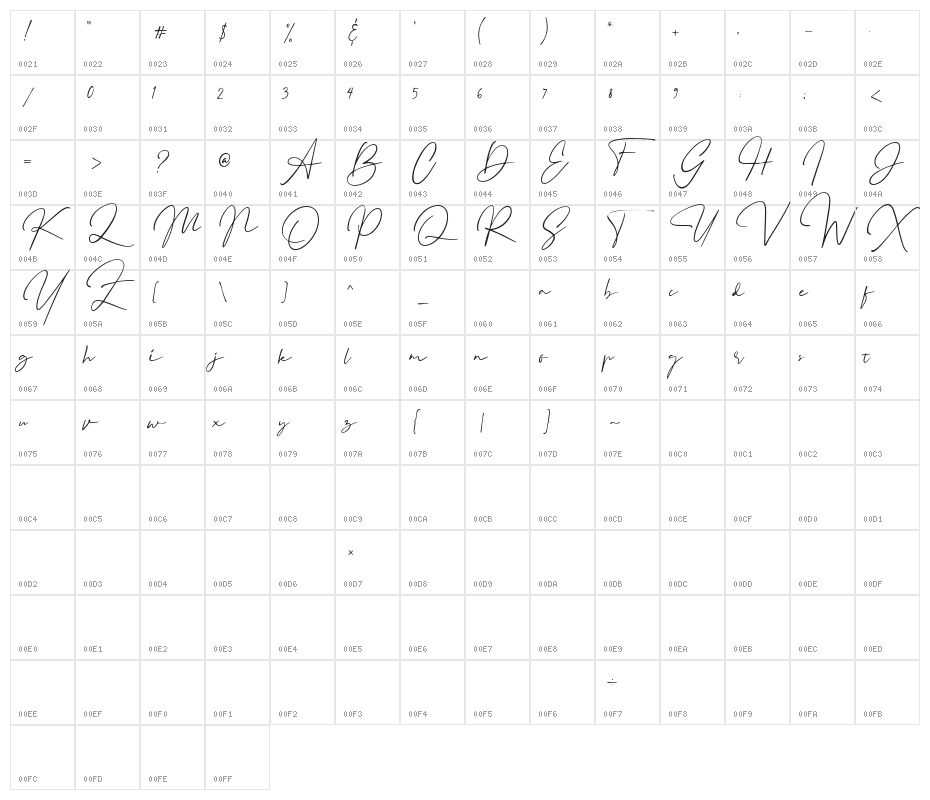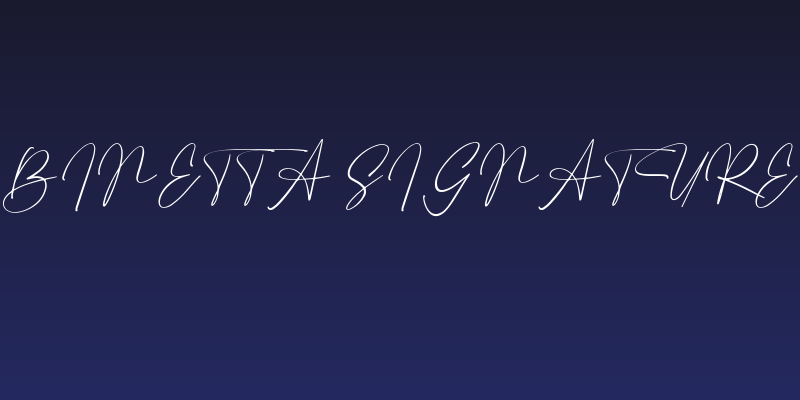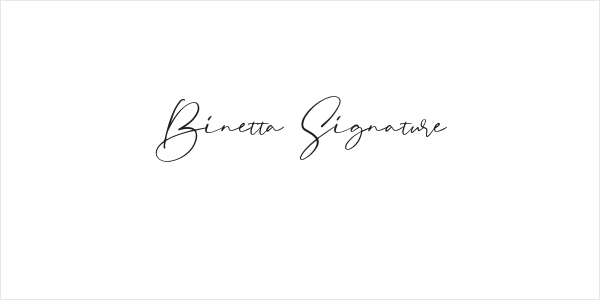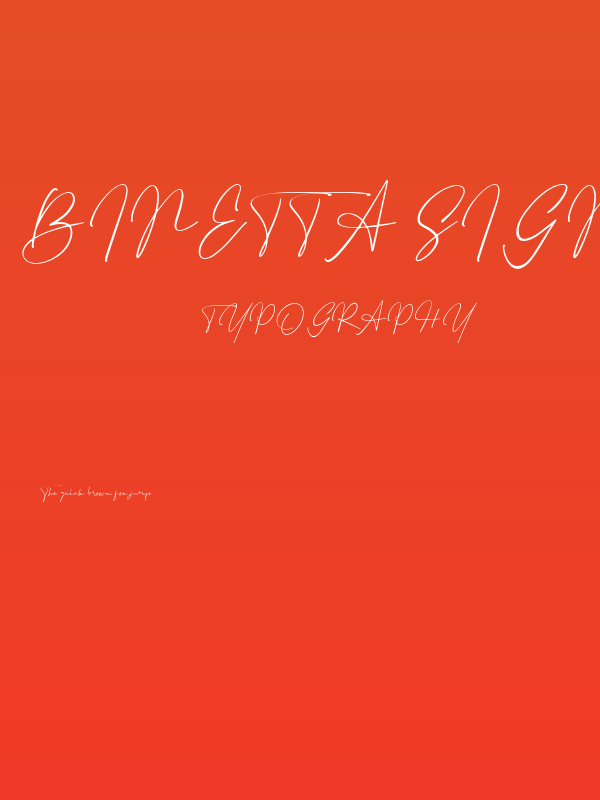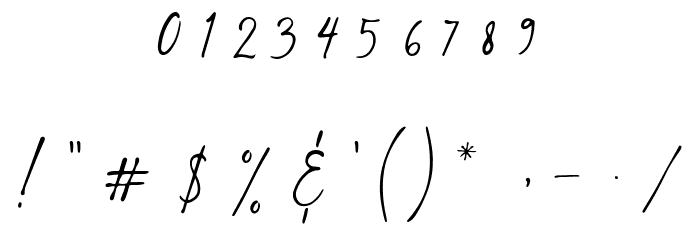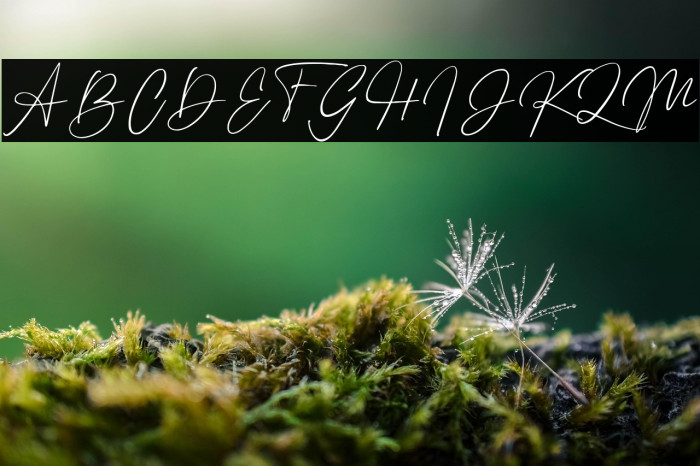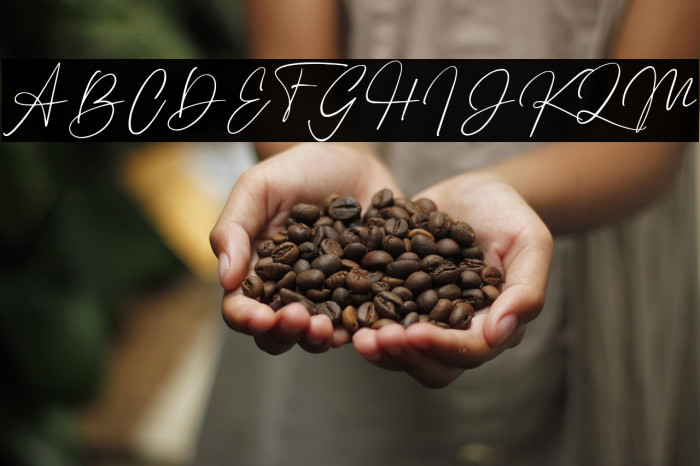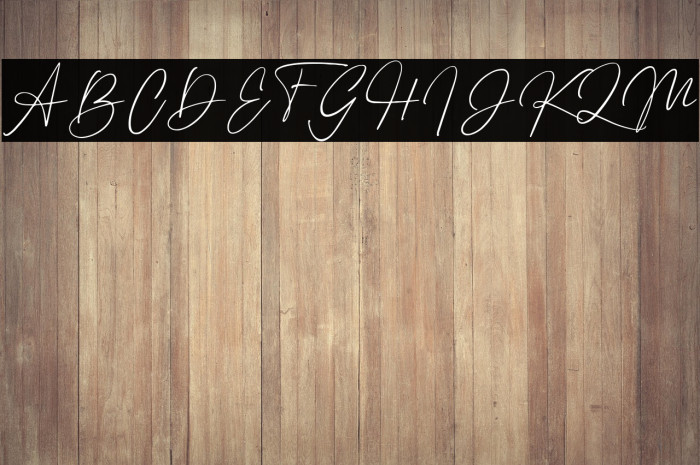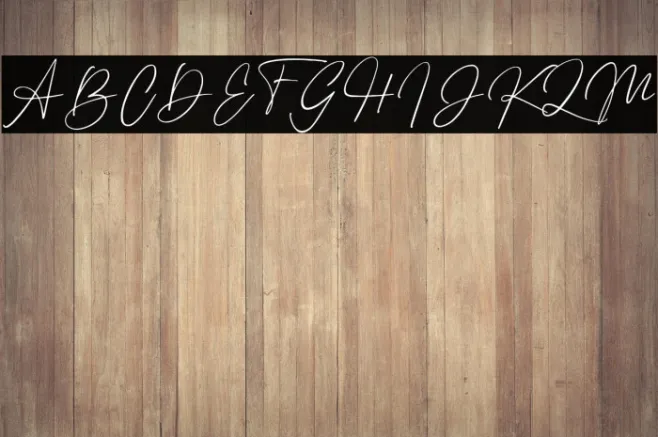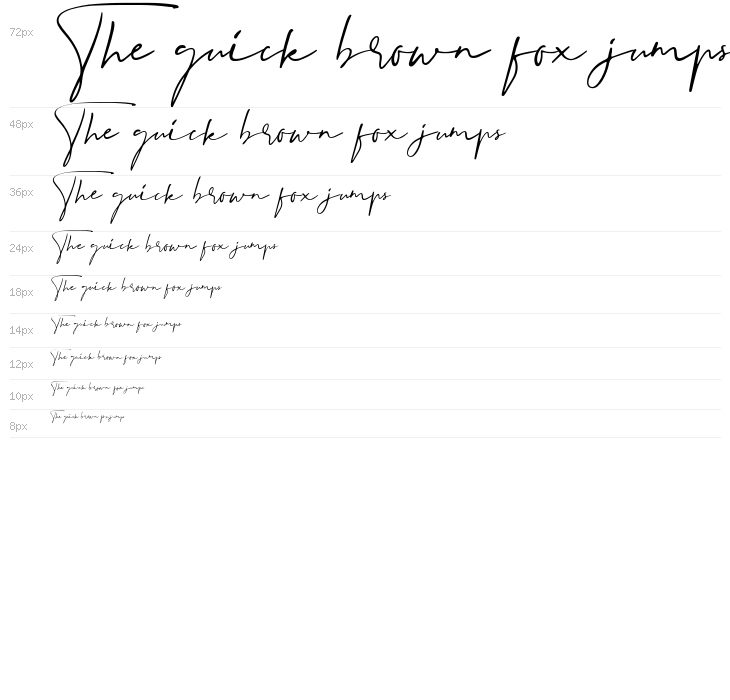
Binetta Signature Font
Binetta Signature Description
This font exudes elegance and sophistication with its flowing, cursive style. The letters are interconnected, creating a seamless and fluid appearance that mimics natural handwriting. Each character is crafted with delicate strokes, giving it a refined and graceful look. The uppercase letters are slightly more elaborate, while the lowercase letters maintain a consistent and harmonious flow. The numerals and special characters are designed to match the overall aesthetic, ensuring a cohesive look across all text. This font is perfect for adding a personal touch to any project, making it ideal for invitations, branding, and other creative endeavors.
| Proposed Projects | Ideal for wedding invitations, personal branding, greeting cards, and elegant logos. |